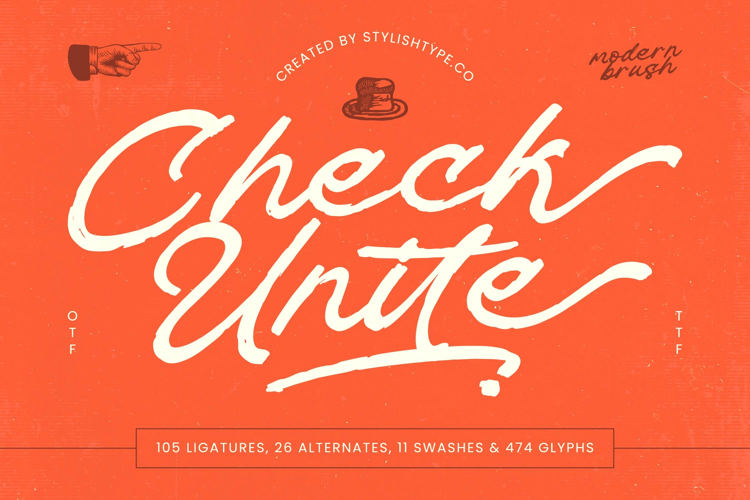
Check Unite - Modern Brush Font
Check Unite
Check Unite Italic
Inject instant, raw energy into your visual communication. Introducing Check Unite - Modern Brush Font, the ultimate display script crafted to deliver high-impact, authentic personality. This font captures the spontaneous feel of a bold, wet brush, featuring strong baselines and smooth, flowing connections that ensure maximum readability without sacrificing its handcrafted authenticity. It is designed for creatives seeking to make an unmistakable, vibrant statement in competitive markets, offering a fresh, highly expressive typography solution.